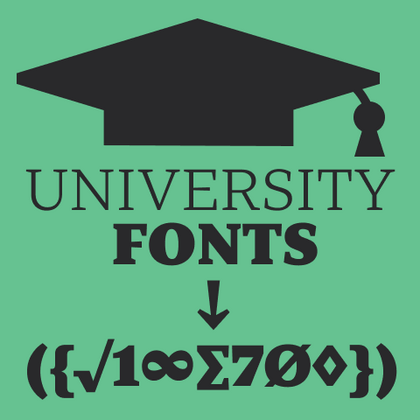
University fonts
TypeType’s university fonts represent a specialized class of font families that blend academic rigor with modern functionality. Each letterform is carefully designed for optimal readability in educational materials, scientific publications, and official documents. These fonts maintain the traditional elegance of academic typography while meeting the demands of digital environments—from lecture presentations to campus signage.
TT Odellia is an old-style serif with a modern design, inspired by Venetian typefaces and classical music.
TT Dott is an experimental pixel grotesque where a circle is used as the base for the pixel. It is a fluid and unusual display font, evoking associations with embroidery and techno parties all at once.
TT Norms® Pro is a typographic legend embraced by world-renowned brands. Evolved through multiple iterations, it has conquered MyFonts and redefined typographic versatility. A design workhorse that transforms from a humble tool to an essential creative companion.
TT Commons™ Pro is the studio’s typographic powerhouse. A font so versatile it defies categorization, seamlessly bridging style and function. For designers seeking a universal foundation that elevates every project, this is the definitive choice.
TT Hoves Pro is a Scandinavian sans serif that whispers minimalist elegance. Simultaneously understated and distinctive, it’s a designer’s secret weapon that transforms complex challenges into visual poetry with effortless precision.
TT Supermolot Neue is a game-changer in visual communication! An advanced, modular sans serif that captures the pulse of technological innovation, bringing electrifying vision to everything from immersive game interfaces to bold visual narratives.
TT Firs Neue is a balanced sans serif infused with Scandinavian design philosophy. Elegant and versatile, polished through two deliberate revisions to achieve typographic perfection.
TT Rounds Neue is a soft and friendly font that knows how to be different. In lighter font styles it looks minimalist and neutral. The bold font styles make it puff up and achieve maximum roundness, exuding childlike charm.
TT Fors is a design Swiss Army knife of typography. This geometric sans serif delivers pure versatility through clean, refined proportions. It can be used for defining interfaces or crafting visual accents.
TT Ramillas is a stylish and contemporary serif that elevates design to an art form. Characterized by its unique decorative styles and initials with a floral ornament, it crafts visual experiences that are truly one-of-a-kind. Already adorning over 3000 websites globally, it’s a Modern Cyrillic award-winner that redefines typographic sophistication.
TT Regins is a Scottish modern serif. Striking contrast and sharp triangular serifs give this font a stern and commanding character, while refined forms, enlarged lowercase letters, and slightly condensed, static proportions add grace to its design.
TT Quaris is an exquisite, modern high-contrast sans whose design balances between soft and sharp. The glyph shapes in the font are fluid and tend towards roundness, yet there are also sharp elements.
TT Bakers is a fluid serif with a gentle and lively character. This font is like freshly baked goods: it`s warm and soft, especially in its bolder weights.
TT Firs Neue is a contemporary reincarnation of the good old TT Firs sans serif.
TT Marks delivers a script with dynamic rhythm, heartfelt character, and nostalgic appeal inspired by the classic art of American sign painting. This craft, where skilled artists hand-painted storefront signage with brushes and careful technique, is experiencing a well-deserved renaissance in today`s design world.
TT Fellows is a humanist sans serif with a mechanical touch.
TT Drugs is a typeface that doesn`t feature serifs but stands out for its high contrast.
TT Gertika is a geometric sans serif with a dynamic character and a dancing rhythm. This font`s idea originates from the lettering featured on an American poster from the late 1930s.
TT Biersal is a display sans serif with a free-spirited, playful, and adventurous nature. The concept of this font was sparked by a German poster from the early 1930s.